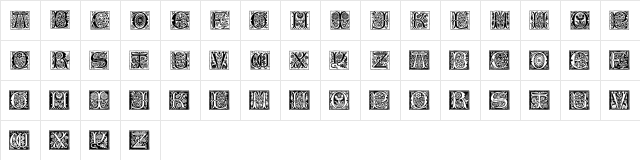
Romantique Initials Regular
| Foundry | Character, based on an alphabet design by Aridi. |
| Designer | Based on an alphabet design by Aridi. |
Design Context for Romantique Initials Typeface
Romantique Initials has the warm character of retro typography — evoking diners, record sleeves, and the golden age of print advertising.
Perfect for vintage-inspired branding, retro packaging, nostalgia campaigns, and period-accurate editorial design.
Font Pairing: Combine Romantique Initials with a simple slab or neutral sans — period-accurate companions reinforce the vintage feel without competing for attention.
Pro Tip: Use Romantique Initials for headlines and pull quotes rather than body copy — its personality is best appreciated in short, focused bursts.